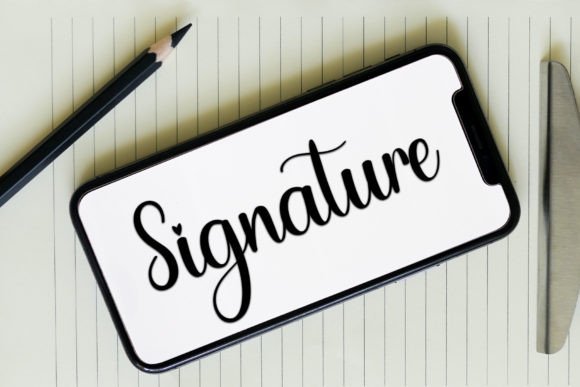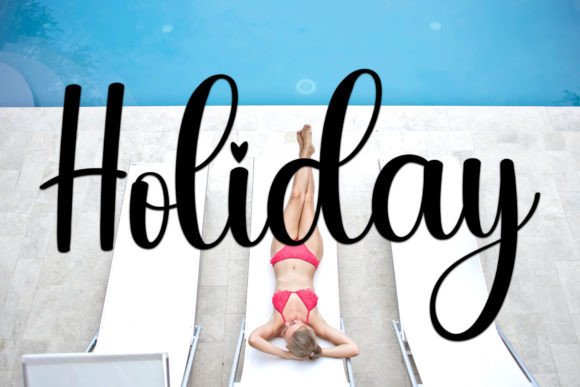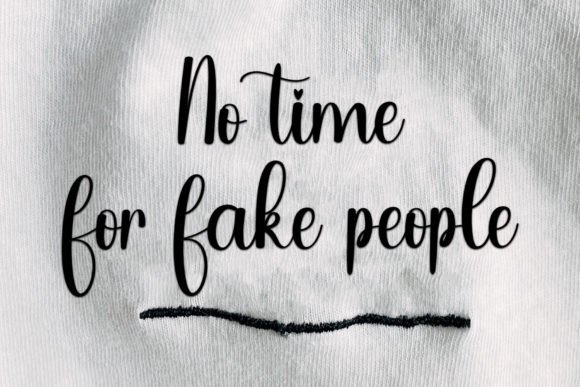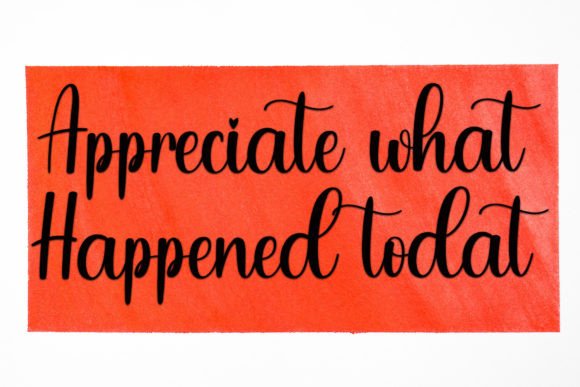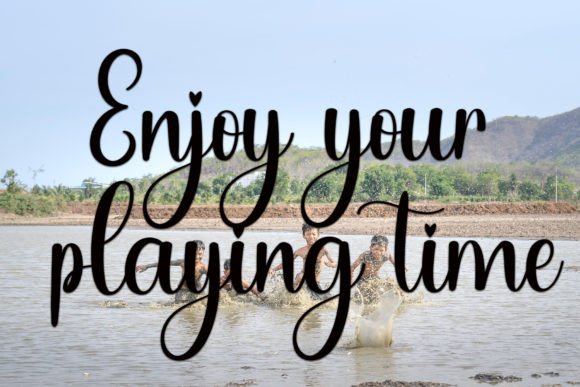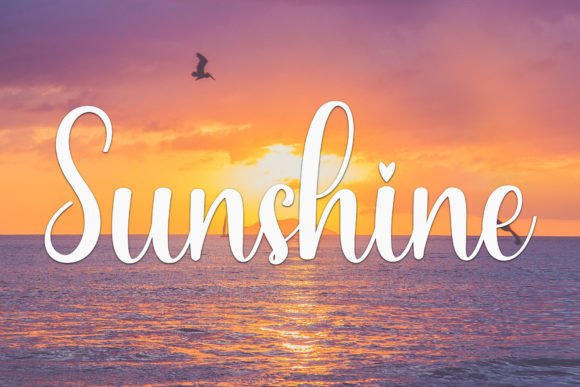
The Quest for the Perfect Font: Discovering Absolute
I’ll never forget the time I was working on a branding project for a boutique client, and I just couldn’t find the right font to capture the essence of their elegant yet modern vibe. I scoured the internet, tried countless combinations, and even considered creating my own from scratch (don’t ask how that went 😂). That’s when I stumbled upon Absolute Font, a stylish handwritten font that instantly resonated with my design sensibilities.
First Impressions: A Timeless Classic
Absolute Font is described as a contemporary take on timeless classic calligraphy, and I couldn’t agree more. Its impeccable form, balanced and varied lettering, and beautiful ligatures make it a versatile choice for any design project. The fact that it’s PUA encoded is the cherry on top – easy access to all the amazing glyphs and ligatures means I can focus on creating, not fussing over technicalities.
Honest Review: The Good, the Great, and the Quirks
- ✨ Stunning ligatures and glyphs that add a touch of sophistication to any design
- ✅ Easy to read and understand, even at smaller font sizes
- 🎨 Versatile and adaptable to various design styles and industries
- 🤔 One minor quirk: some letters may appear a tad too ornate for very informal or playful projects
- ⚠️ As with any script font, spacing may require some manual tweaking for optimal results
The Story Behind Absolute Font
According to its creators, Absolute Font was inspired by the timeless classics of calligraphy, with a modern twist. The goal was to craft a font that’s both elegant and approachable, perfect for designers seeking a sophisticated look without sacrificing readability. Whether or not that’s entirely true, one thing’s for sure – Absolute Font has captured the hearts of many designers, including mine.